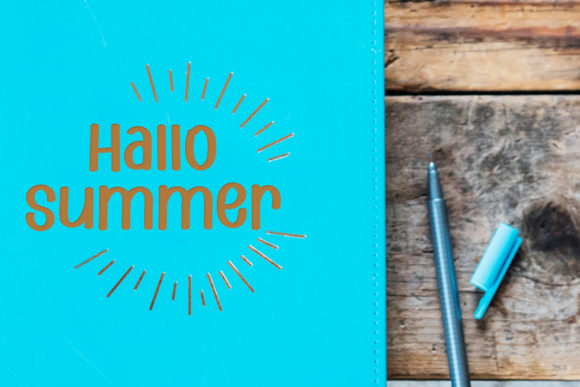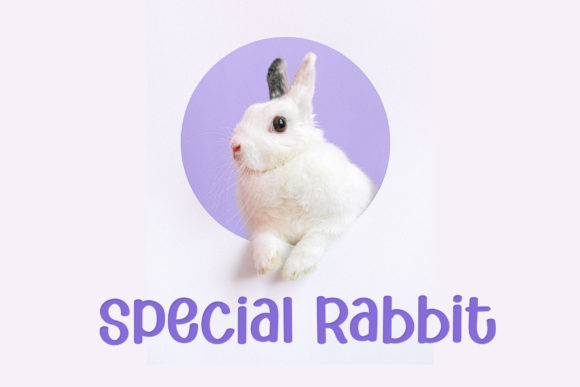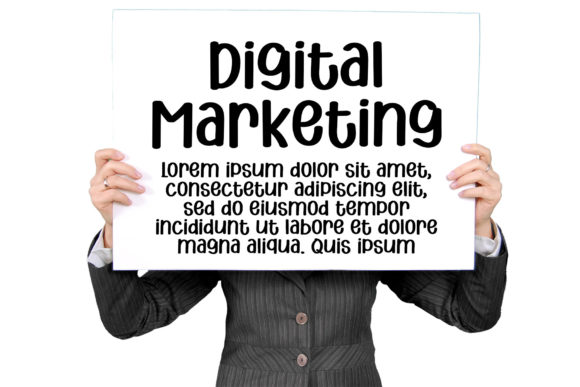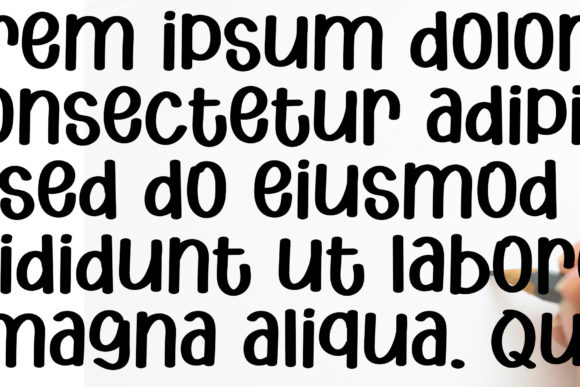
Coffee Milk Font
About Coffee Milk Font
Coffee MilkĀ is a simple and clean handwritten font. This adaptable font will look great on a variety of design ideas. It will add a fun and friendly touch to each of your projects!